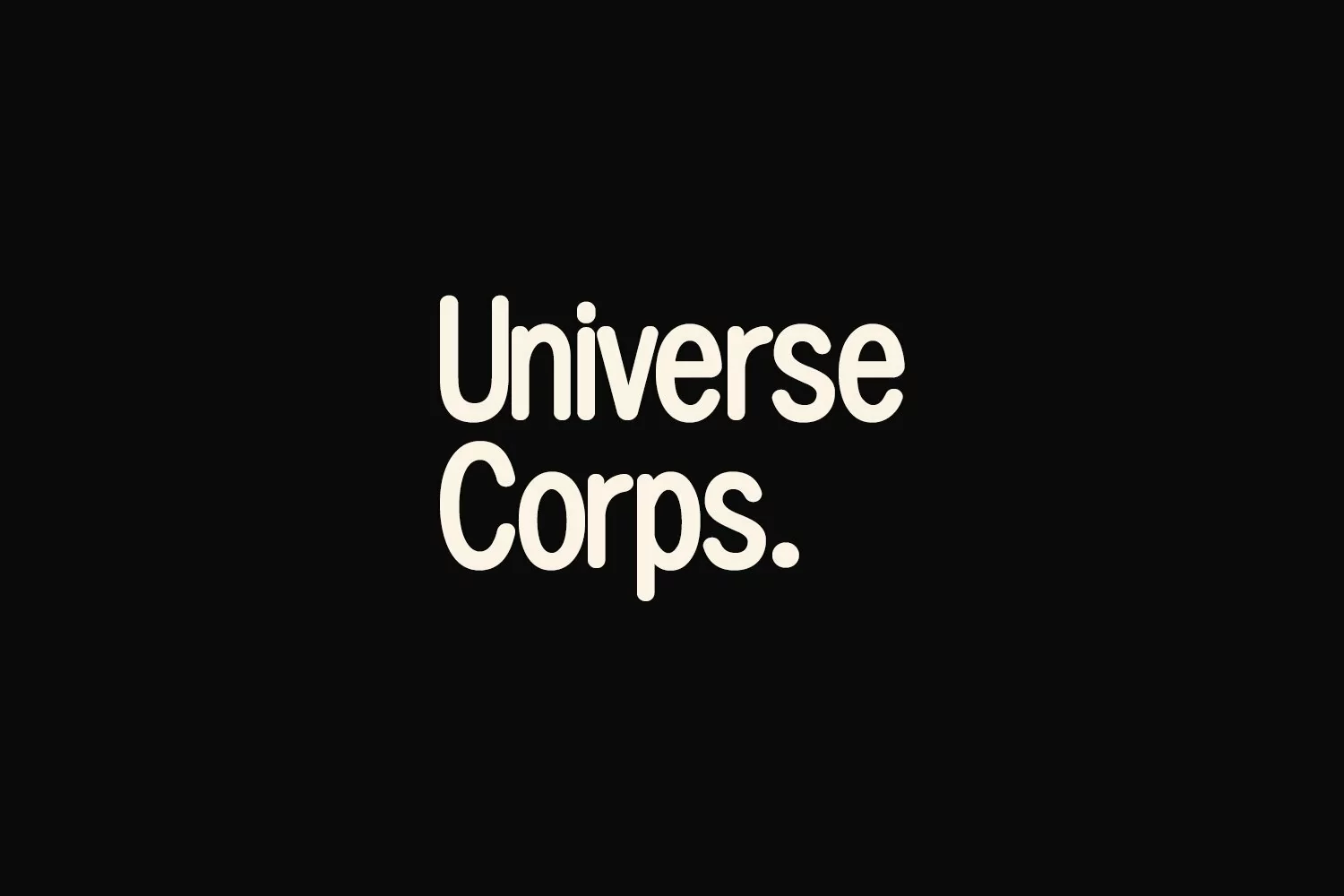
Give your designs an authentic handcrafted feel. "Jerawag Berroys" is perfectly suited to poster, stationery, logo, typography quotes, magazine or book cover, website header, clothing, branding, packaging design and more.
Jerawag Berroys